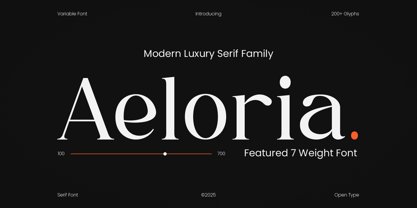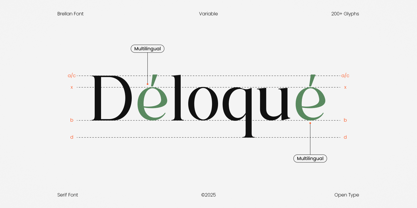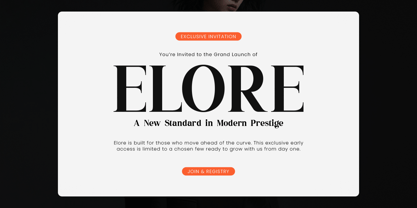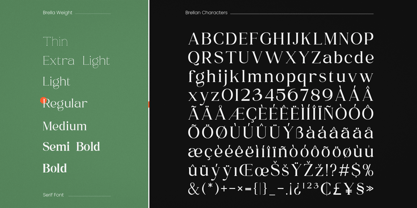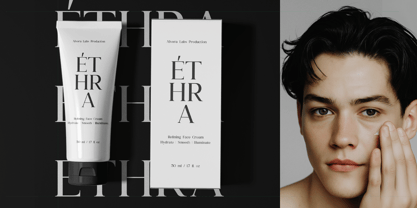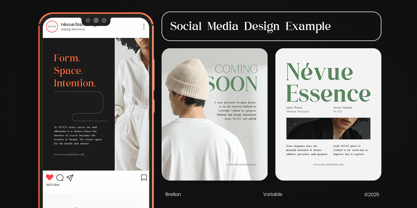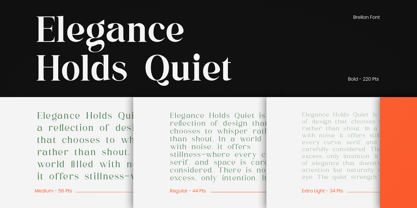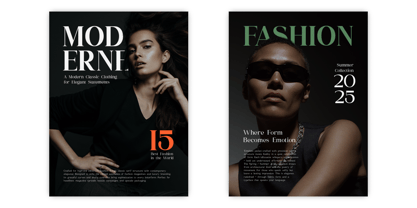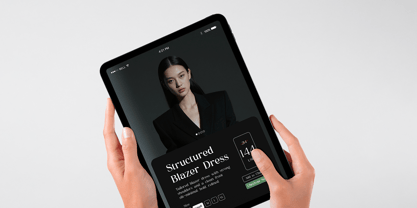
Aeloria
by Steptype
The Aeloria Font Family was designed by Asya Fatkhul Illah and published by Steptype. Aeloria contains 7 styles and family package options.
Aeloria is a refined serif typeface designed specifically for editorial layouts, corporate branding, professional presentations, and elegant design projects. Drawing inspiration from timeless classics like Times New Roman, Aeloria features sharp serifs, graceful proportions, and high legibility, making it the perfect choice for designers seeking sophisticated and versatile typography. This typeface is ideal for brands and creators who desire a classic, trustworthy, and elegant serif font that enhances any design—whether in print or on screen.
Designers: Asya Fatkhul Illah
Publisher: Steptype
Foundry: Steptype
Design Owner: Steptype